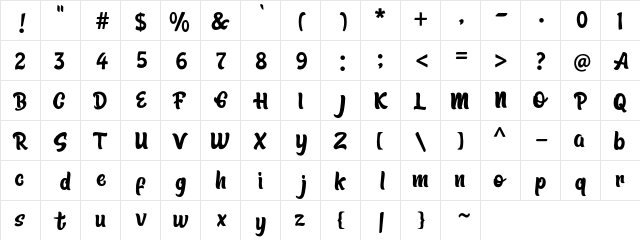
BARIKA Regular
| Foundry | Faras Dina |
| Designer | Faras Dina |
Design Context for BARIKA Typeface
BARIKA is a composed and adaptable typeface that performs quietly and consistently across a wide range of design contexts.